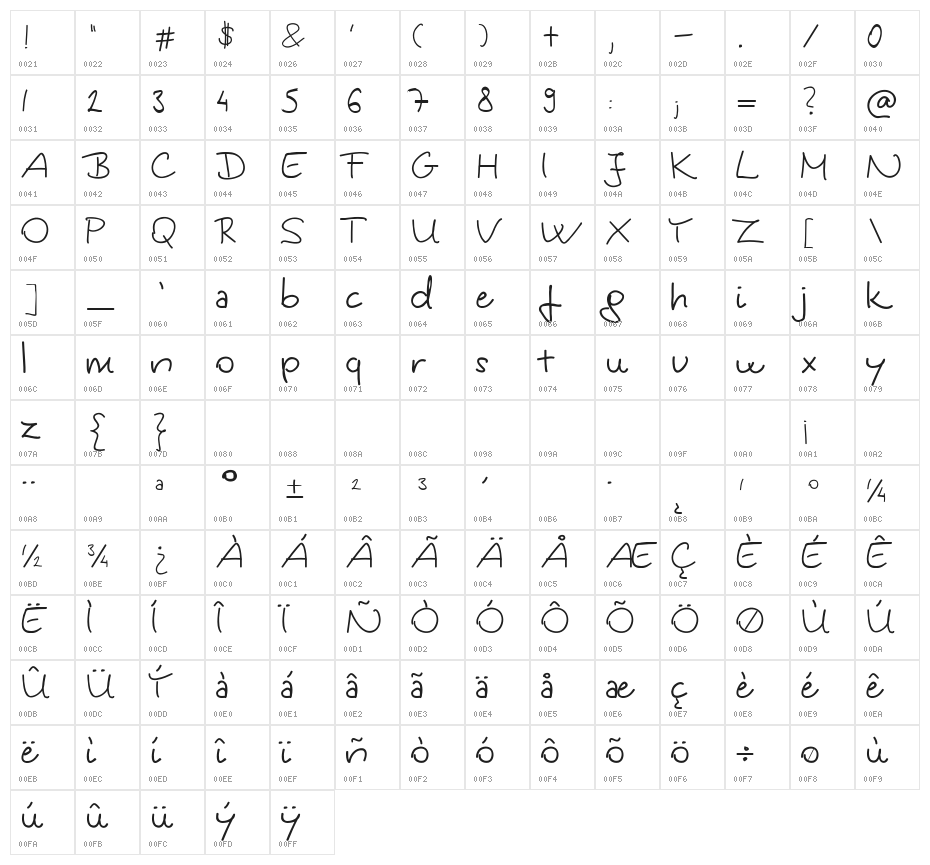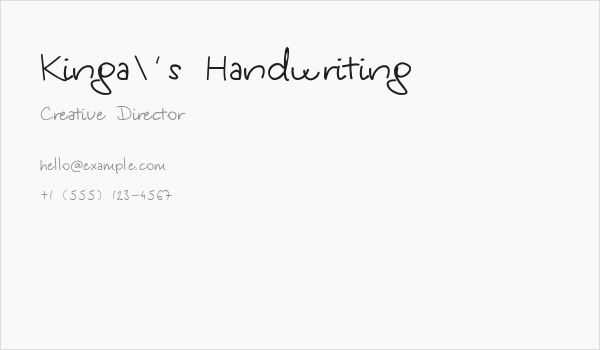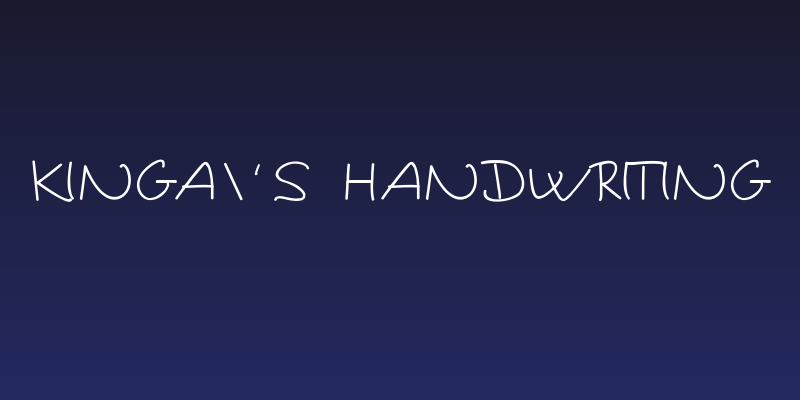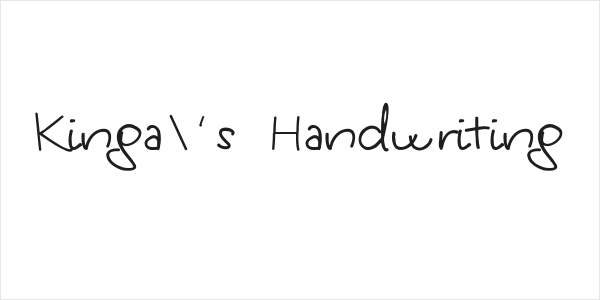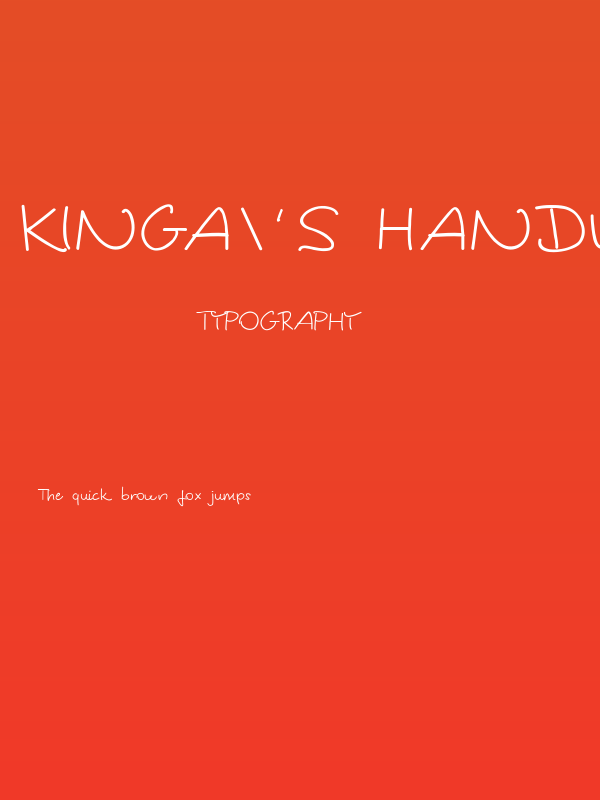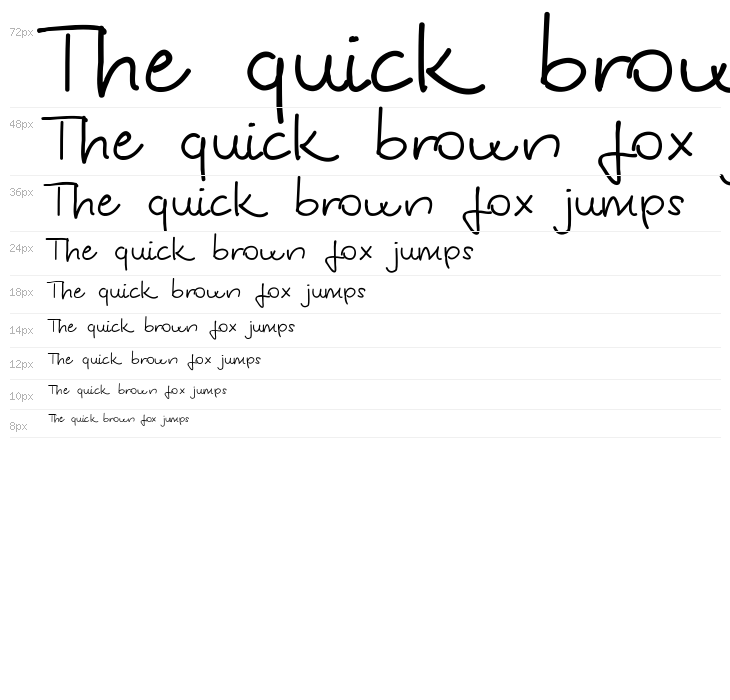
Kinga's Handwriting Font
Kinga's Handwriting Description
This font exudes a casual and personal touch, reminiscent of authentic handwriting. The letters are fluid and slightly irregular, giving it a natural and approachable feel. The uppercase characters maintain a consistent height, while the lowercase letters vary slightly, adding to the handwritten charm. The numerals are clear and legible, with a playful twist that matches the overall style. Special characters are well-integrated, maintaining the font's cohesive look. This font is perfect for projects that require a personal, informal touch, such as greeting cards, personal notes, or creative projects.
| Overall Style | Casual, Personal |
| Proposed Projects | Ideal for greeting cards, personal notes, invitations, and creative projects that require a personal touch. |